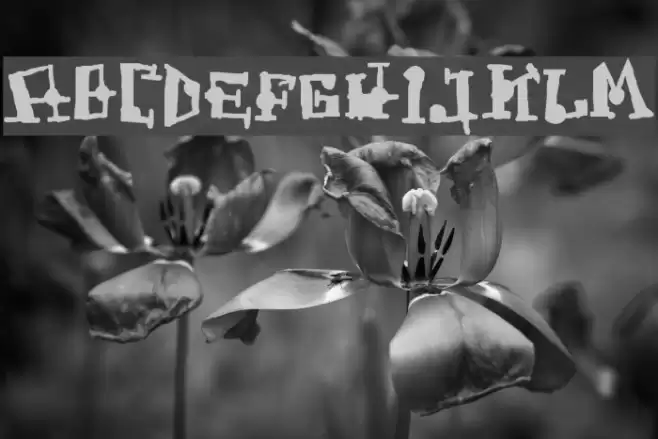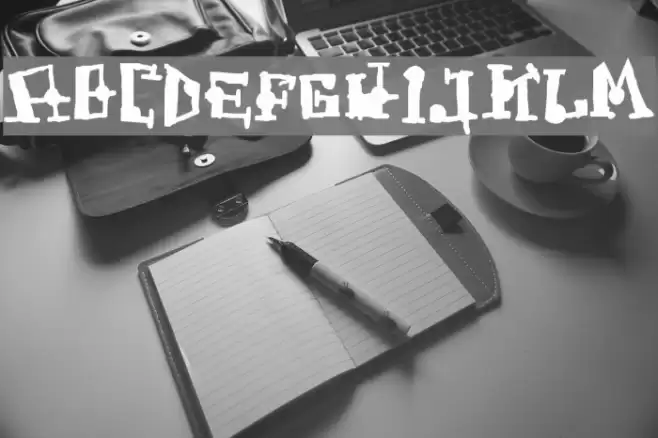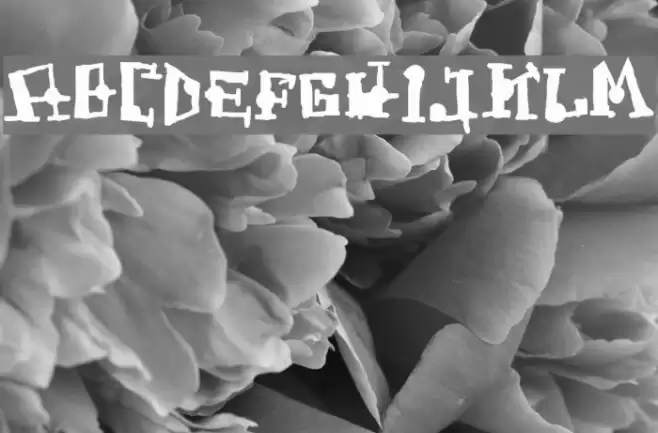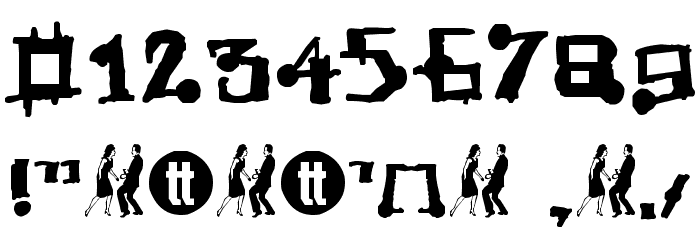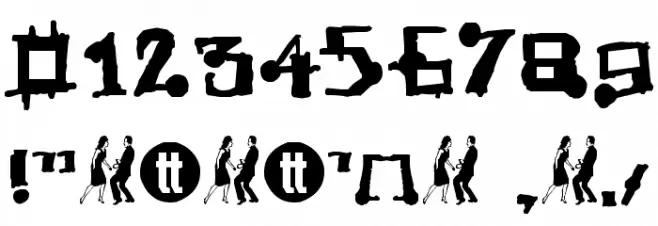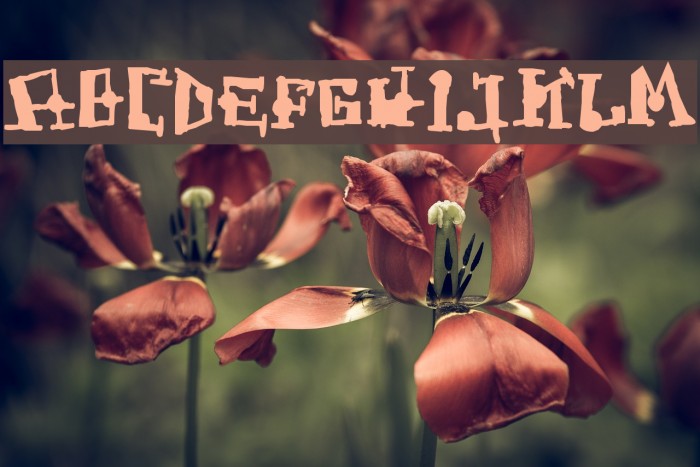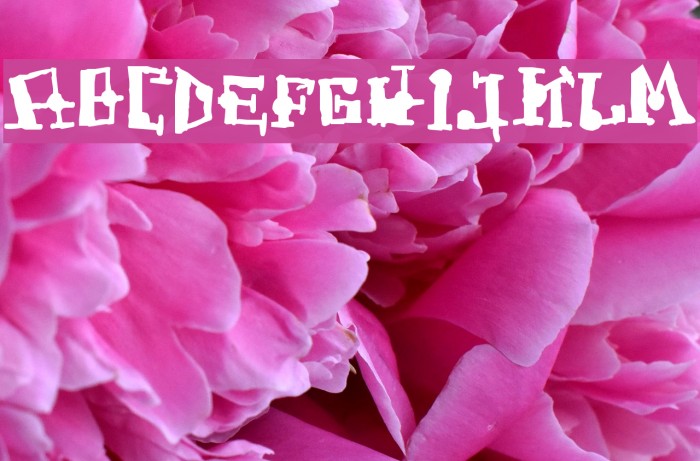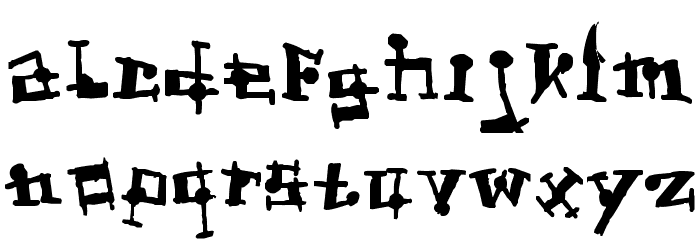
FrogAss Font
FrogAss Description
This font features a highly decorative and unique style, characterized by its bold, irregular shapes and playful design elements. The letters are crafted with a rough, hand-drawn appearance, giving them a dynamic and energetic feel. Each character is distinct, with varying stroke thicknesses and quirky details that add to its charm. The font includes both uppercase and lowercase letters, numbers, and a selection of special characters, all maintaining the same whimsical aesthetic. Its boldness and artistic flair make it stand out, perfect for projects that require a touch of creativity and individuality.
A bold, decorative font with a playful, hand-drawn style from Decorative fonts.